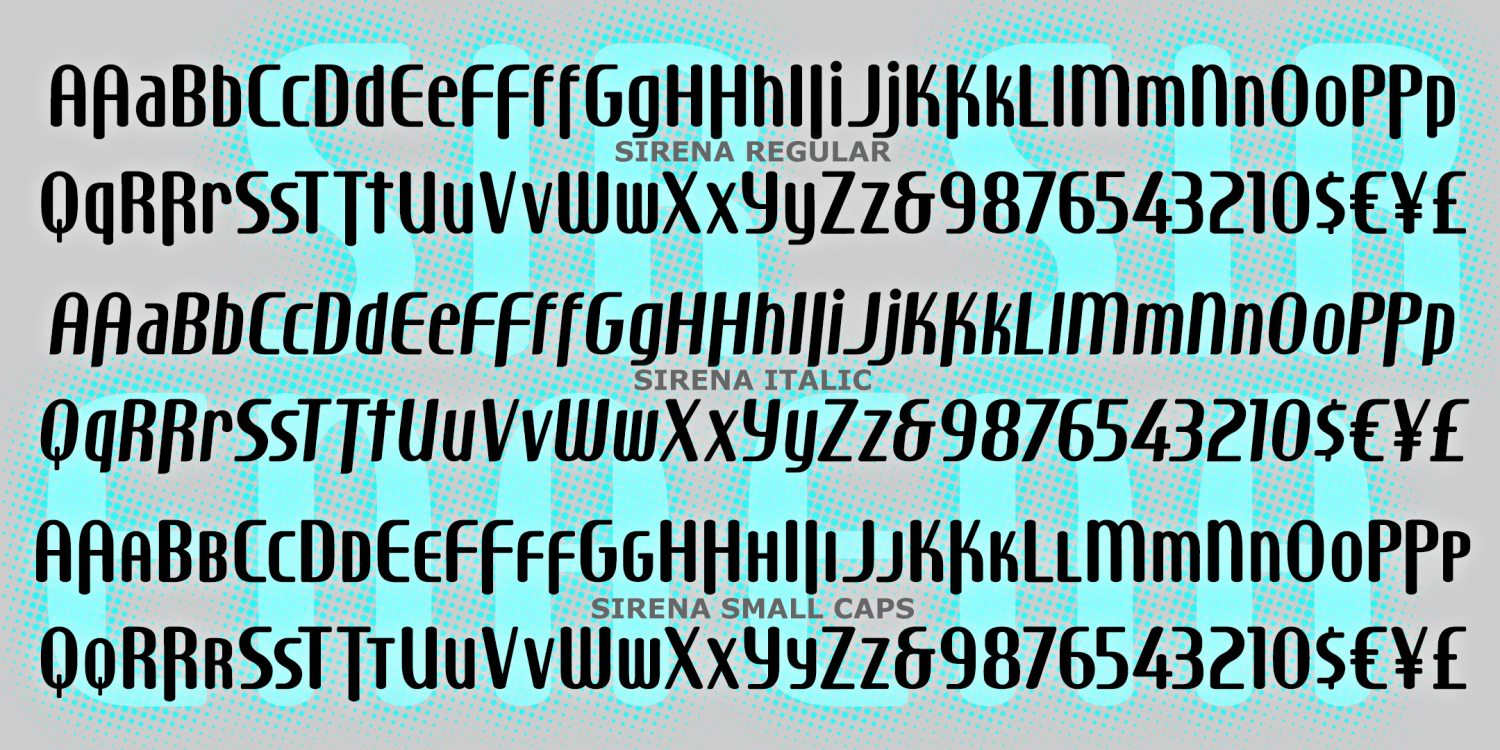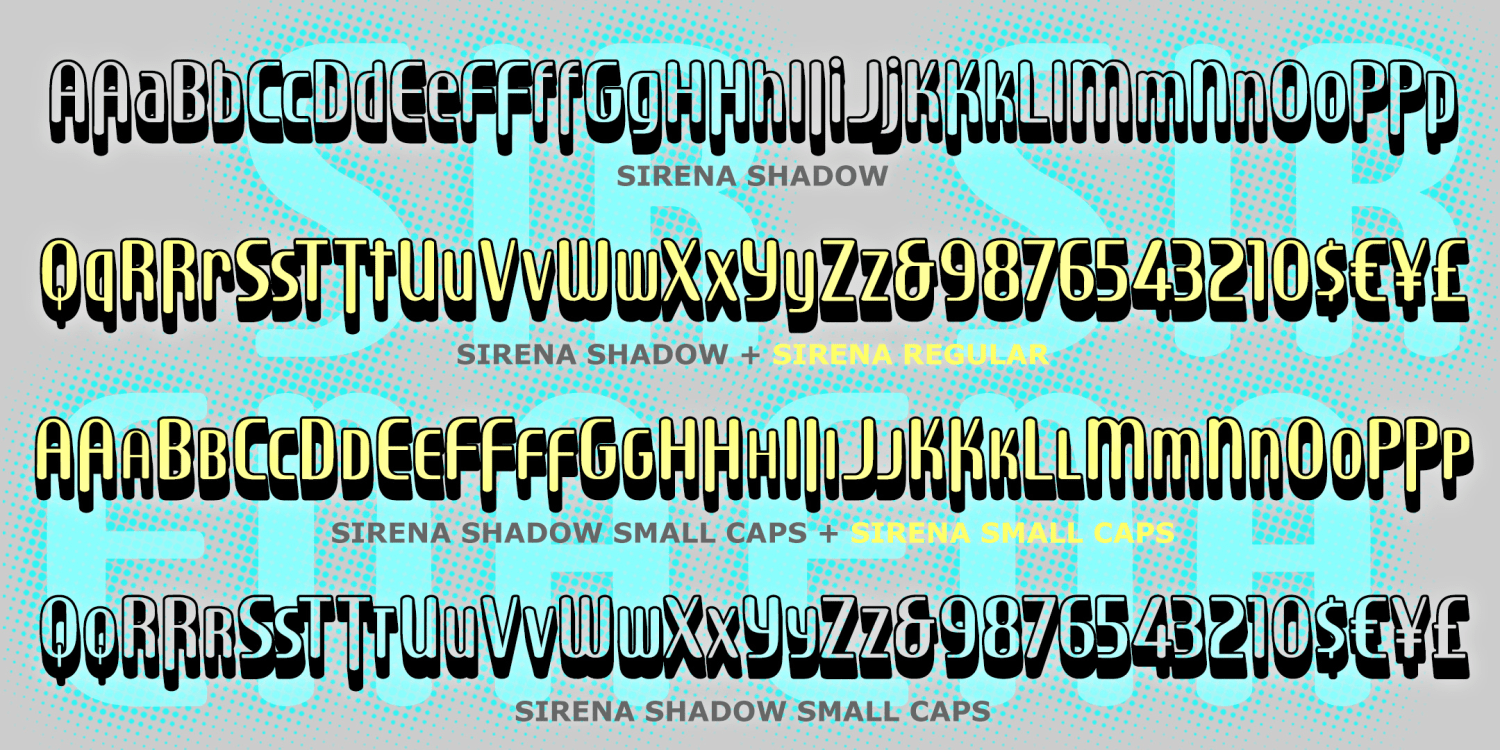
Sirena
SIRENA is smooth, sleek and contemporary with a hint of Art Deco styling. Inspired by the handlettered credits of the film "I Married a Witch" (1942) starring screen siren Veronica Lake. Available in Regular (roman), Italic, Small Caps, Shadow, and Small Caps Shadow; the last two can be layered with the Regular and Small Caps fonts.